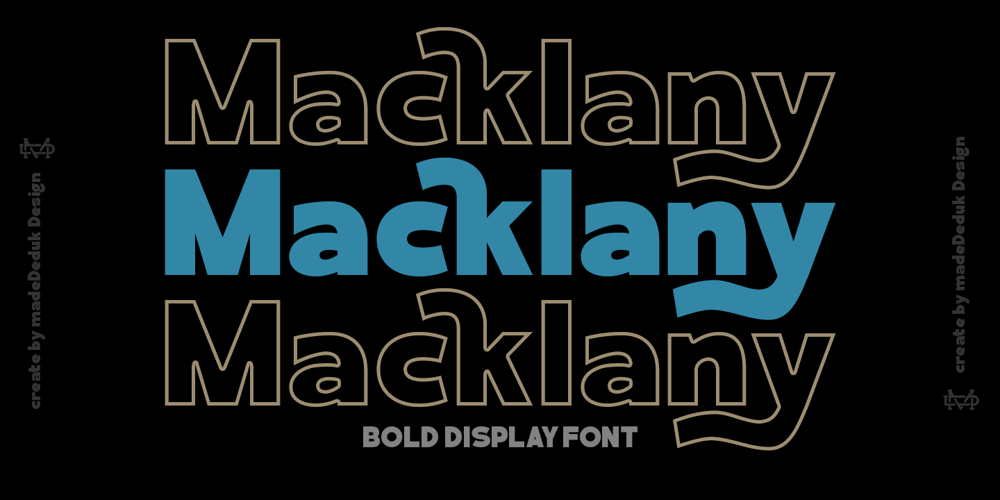
Macklany
Macklany font
Macklany Font Family was designed by madededuk and published by madeDeduk. Macklany contains 2 styles and family package options. Macklany is a display sans, come with single weight, legible and expressive shapes. A lot of stylish alternates characters will makes this font suitable for your any project design.Feature Uppercase & Lowercase Number & Symbol International Glyphs Multilingual support Alternative ligature Feel free to drop us a message any time and follow my shop for upcoming updatesShoot me on email at: dedukvic@gmail.com and find more previews on my Instagram here : https://www.instagram.com/acekelgondolayu/?hl=enHope you enjoy it.